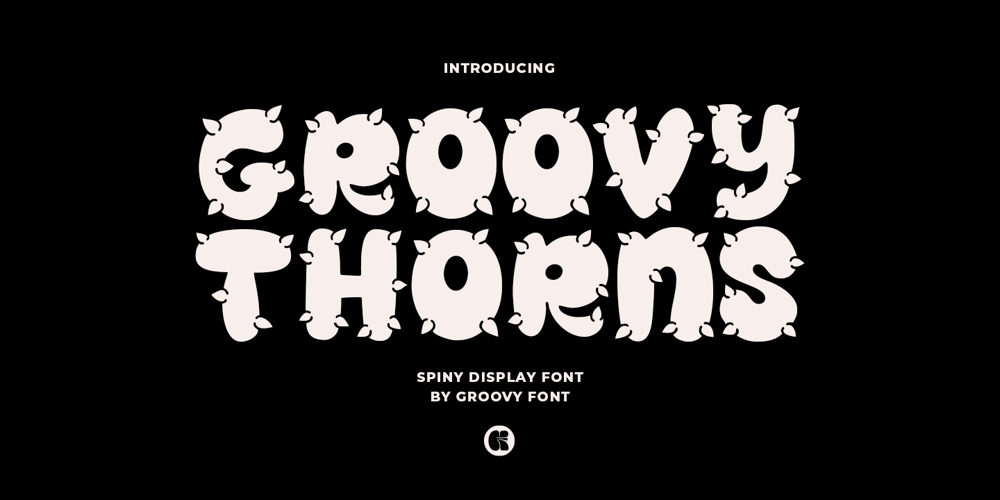
GF Thorns
GF Thorns font
GF Thorns Font Family was designed by Ahmad Ginanjar Riyadi and published by Groovy Font. GF Thorns contains 2 styles and family package options. Groovy Thorns font is a unique and edgy display font that features intricate designs inspired by the thorny branches of a rose. This font’s spiny and ornate details add a touch of sophistication and drama to any text it is applied to. With two styles available – regular and outline – Groovy Thorns provides flexibility in creating different text effects and layouts. This font is ideal for projects that require a bold and distinctive look with a hint of decorative elegance.What’s you’ll get : – Uppercase, Lowercase, Numeral, Punctuation & Multilingual.For any questions please contact me 🙂Thank You !